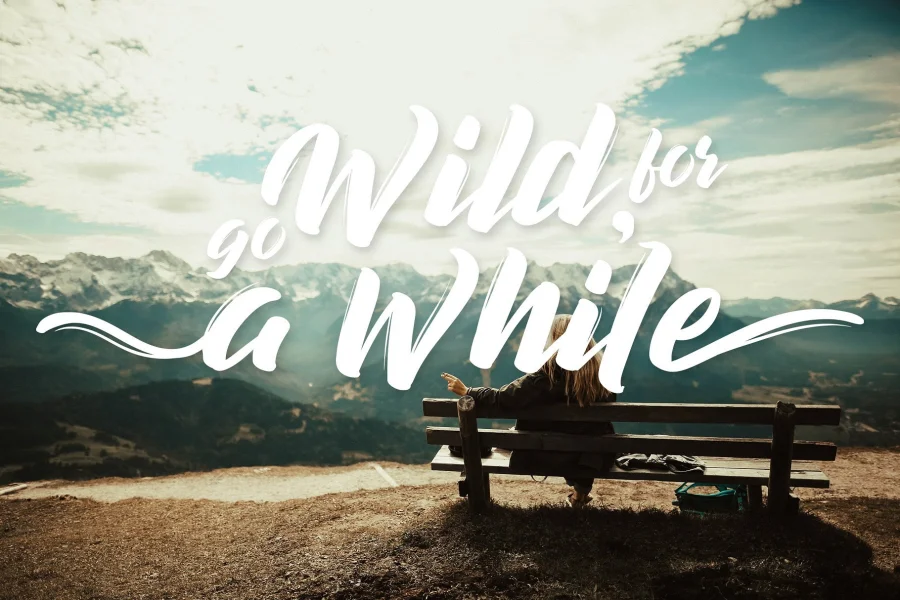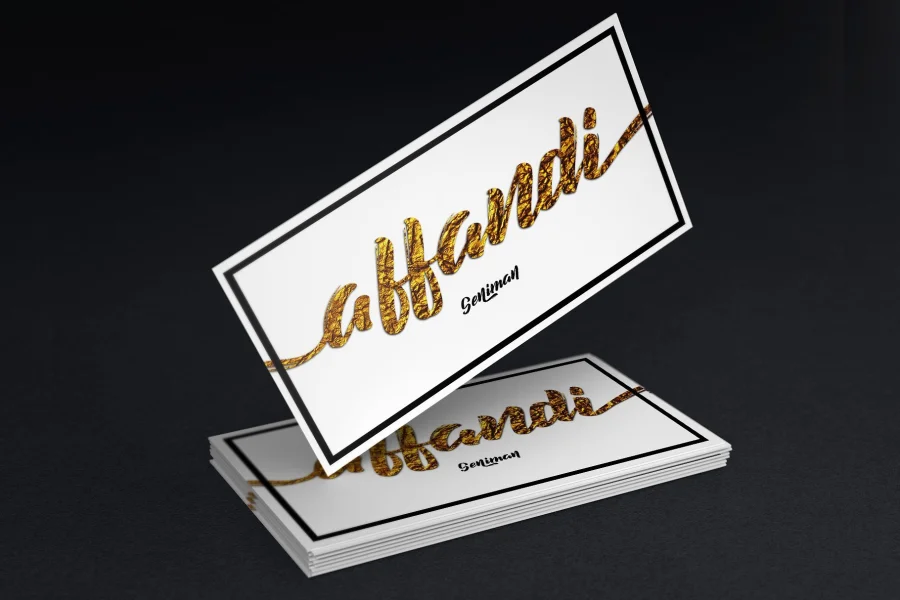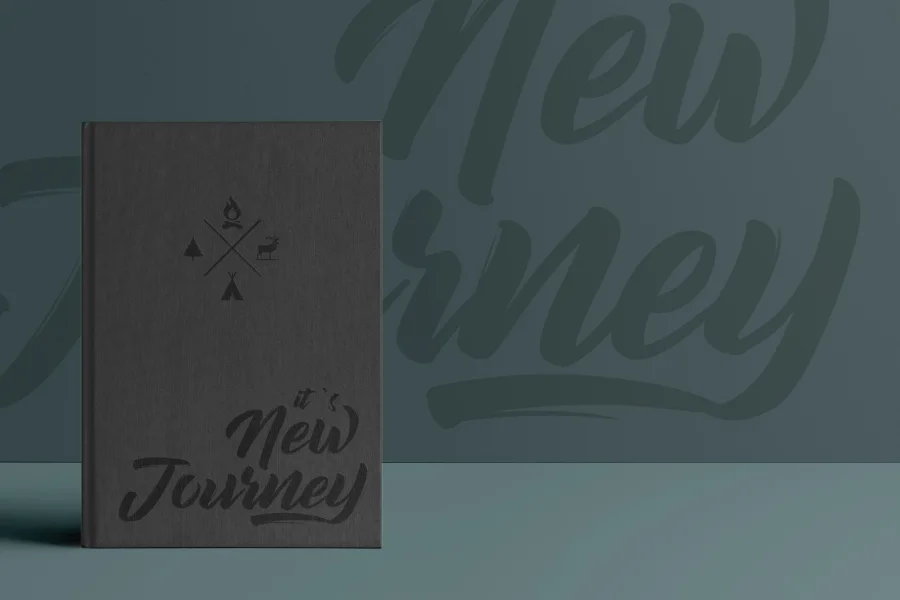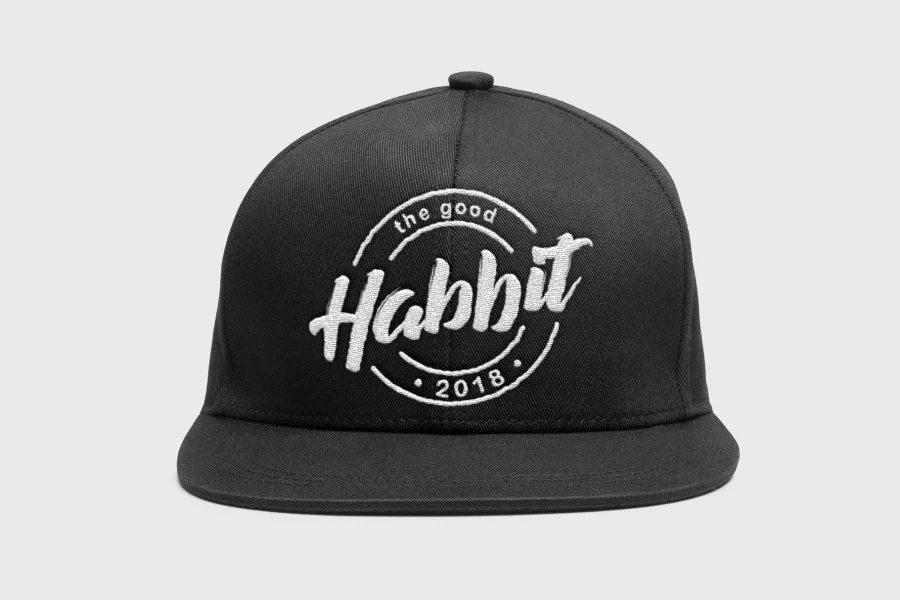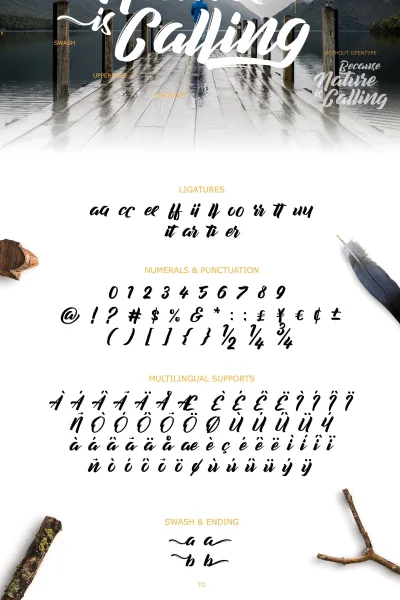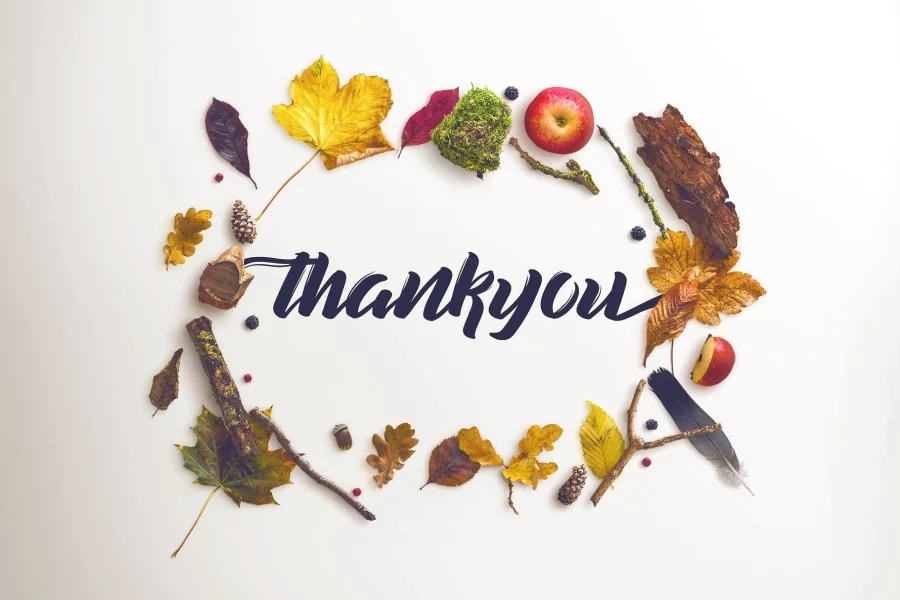
Decalled Script is sharp and elegant font script. The commercial version comes with many opentype feature, upper and lower case standard character, punctuation and numerals, multilingual characters, ligatures, stylistic alternates, swash, and many more glyph.
Perfect for your company logo, branding, poster, flyers, greetings, invitation, book cover, quotes, and many more.